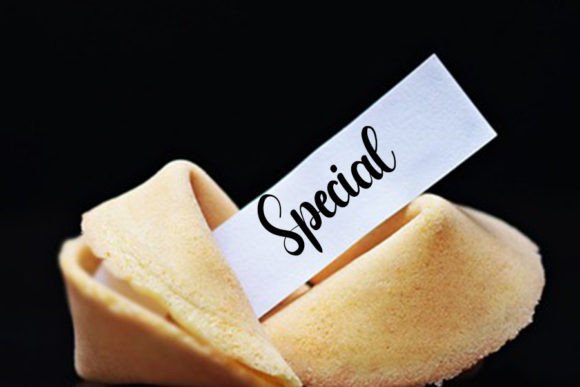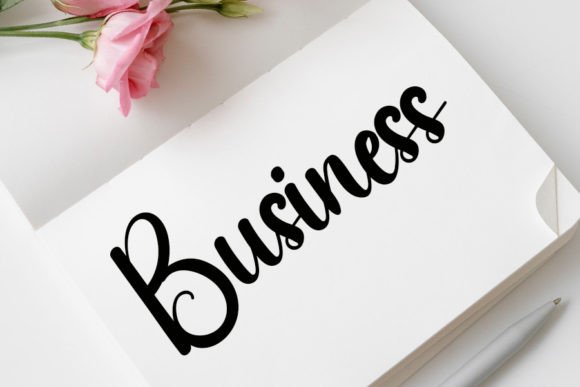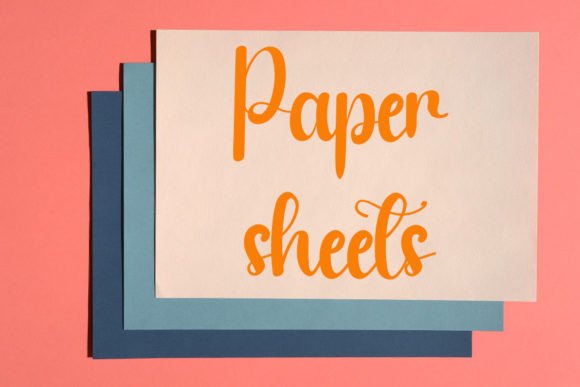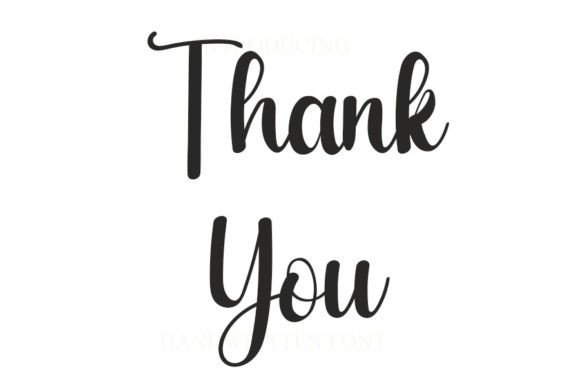
Sparkling Font
About Sparkling Font
Sparkling Font is a neat and beautiful handwritten typeface that adds an elegant and timeless touch to your creative projects. Its distinct style brings sophistication and charm, making it ideal for logos, invitations, branding, and more. Sparkling helps you craft spectacular designs that stand out with grace and personality.
Elegant and Timeless Design
Sparkling features smooth, flowing strokes and balanced letterforms that blend clarity with style. Its elegant appearance suits a wide range of applications, from formal branding to personal stationery. The font’s timeless look ensures your projects remain stylish and appealing.
Ideal Uses for Sparkling Font
This font is perfect for:
• Wedding invitations and save-the-date cards
• Logos and brand identities
• Editorial layouts and magazine designs
• Social media graphics and marketing materials
Sparkling’s elegant style adds sophistication to any design.
Why Choose Sparkling Font?
Designers appreciate Sparkling for its:
• Neat and graceful handwritten letterforms
• Distinctive and timeless style
• Versatility across print and digital platforms
These qualities make Sparkling a practical and beautiful font choice.
Add Charm and Elegance to Your Designs
Typography plays a key role in setting the mood. Sparkling adds warmth, elegance, and personality, making your work feel inviting and polished. Whether for weddings, branding, or editorial projects, this font elevates your designs.
In summary, Sparkling Font is an elegant and timeless handwritten script perfect for designers seeking a classic and refined font. Add Sparkling to your font library to create memorable and sophisticated designs.